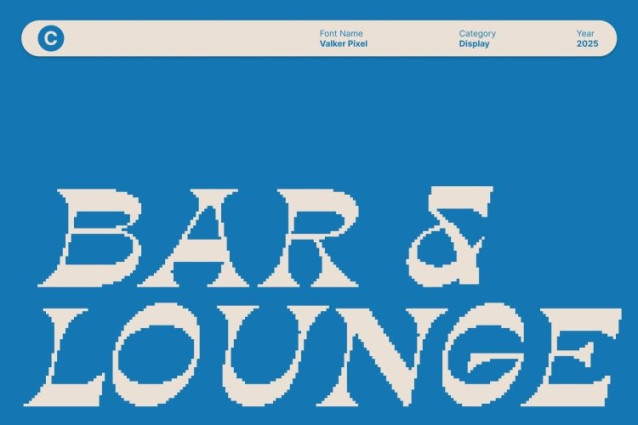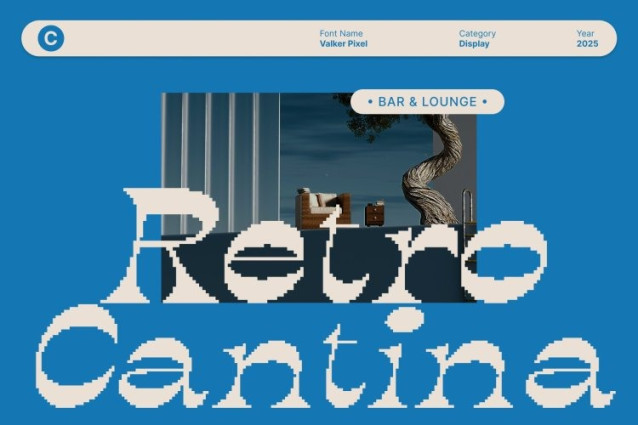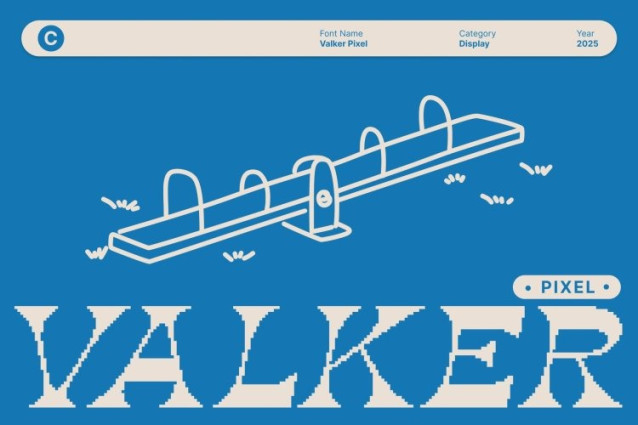
Valker Pixel Font
Valker Pixel Font This is a classic display font that reimagines retro charm through bold, groovy letterforms and decorative curves. Designed to capture the vibrant spirit of the ’70s and ’80s, this font delivers a funky, playful, and energetic character that instantly elevates any creative project.
Pixel Texture for a Digital, Modern Twist
What sets this font apart is its unique pixel-textured finish, blending classic groovy aesthetics with digital-age style. The pixel effect adds a sense of depth, texture, and visual interest, making the font perfect for digital design, game interfaces, retro-inspired graphics, and futuristic layouts.
Playful Curves for Expressive Design
The decorative curves and groovy shapes give this font a lively rhythm, allowing it to communicate movement and excitement effortlessly. Each letterform feels expressive and dynamic, making it ideal for headlines, posters, album covers, and branding that demand attention.
Ideal for Creative and Retro-Focused Branding
Whether you’re crafting a retro-themed brand, a digital art piece, or a playful visual identity, delivers the perfect balance of nostalgia and innovation. Its groovy style, pixel finish, and energetic vibe make it a versatile display font that stands out in logos, advertising, merchandise, and digital assets.